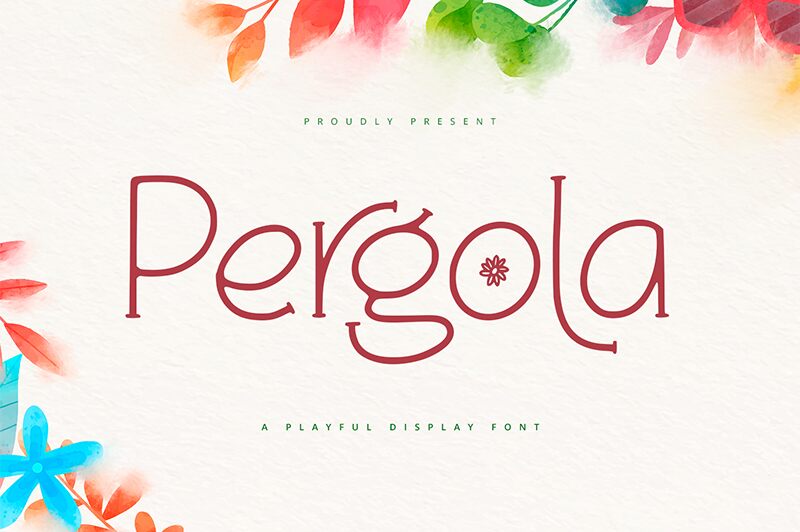
Pergola
Pergola font by Alpaprana Studio is a whimsical and approachable display typeface with an artistic, handcrafted appearance. Its subtle elegance combined with a light weight gives it a delightful charm, perfect for playful and inviting designs. This font beautifully blends creativity and warmth, making it an irresistible addition to any designer’s toolkit.
Enjoy the free creative possibilities for invitation cards, packaging designs, posters, branding projects, logo designs, book covers, album artworks, social media graphics or website designs. Pergola’s versatility is showcased when paired with unique fashion magazines or even in children’s book illustrations.